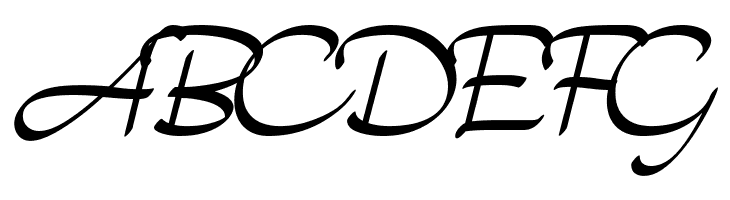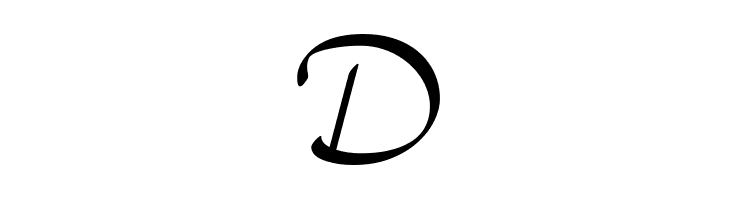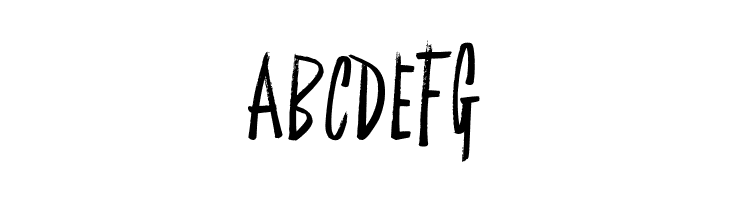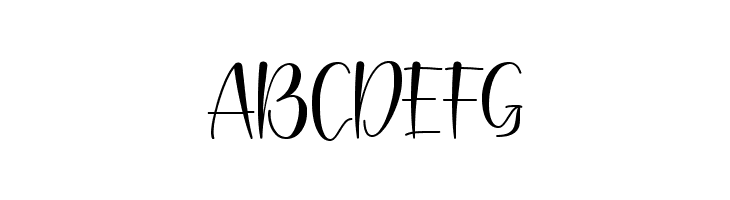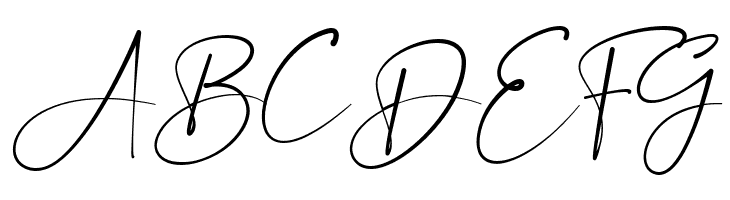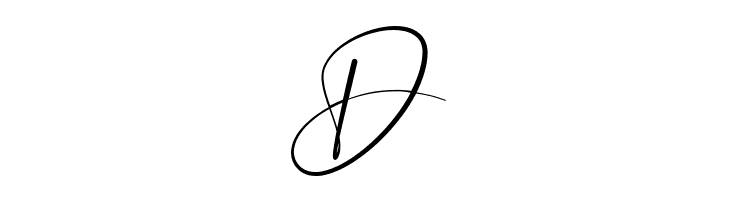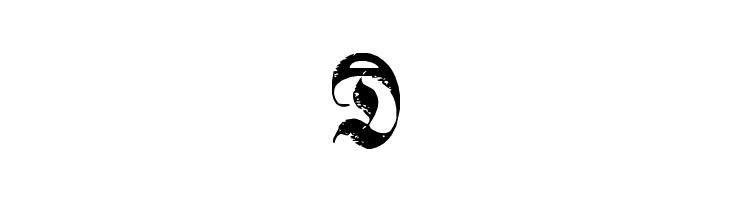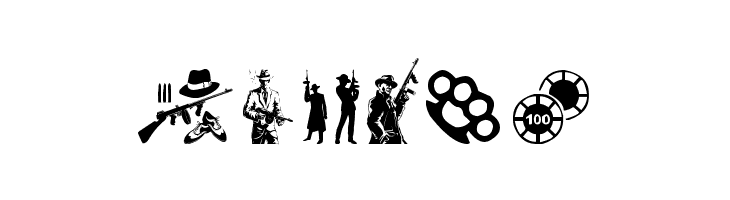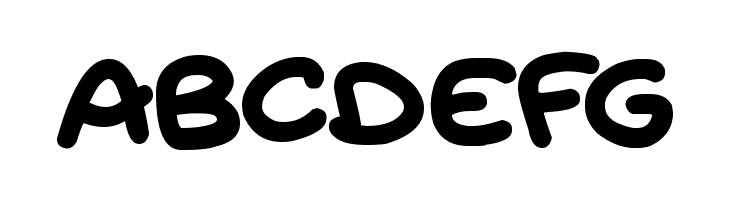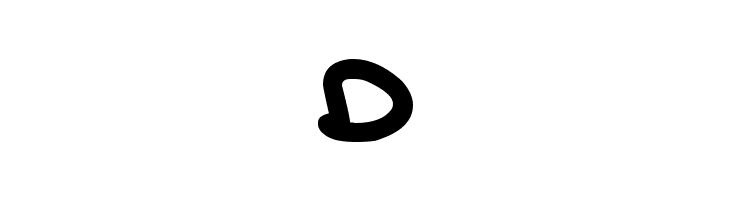
• Made
An ornate Blackletter font with distressed, vintage appeal.
• Made of Stars
A bold, jagged font with sharp, angular shapes for an edgy look.
• Mafia Mix
Bold pictogram set with a mafia and crime theme.
• Magenta Rose
• Magic Moons
( Darrell Flood )
A playful, bold font with rounded, bubbly characters ideal for whimsical designs.
• Magic Moonshine
• Magical Wonder
A bold, hand-painted font with an expressive and dynamic style.
• Magnaline
A stylish and elegant script font with fluid, flowing letterforms.
• magnolie - personal use
A lively, expressive script font with flowing cursive letterforms and medium contrast.
• Mainpar